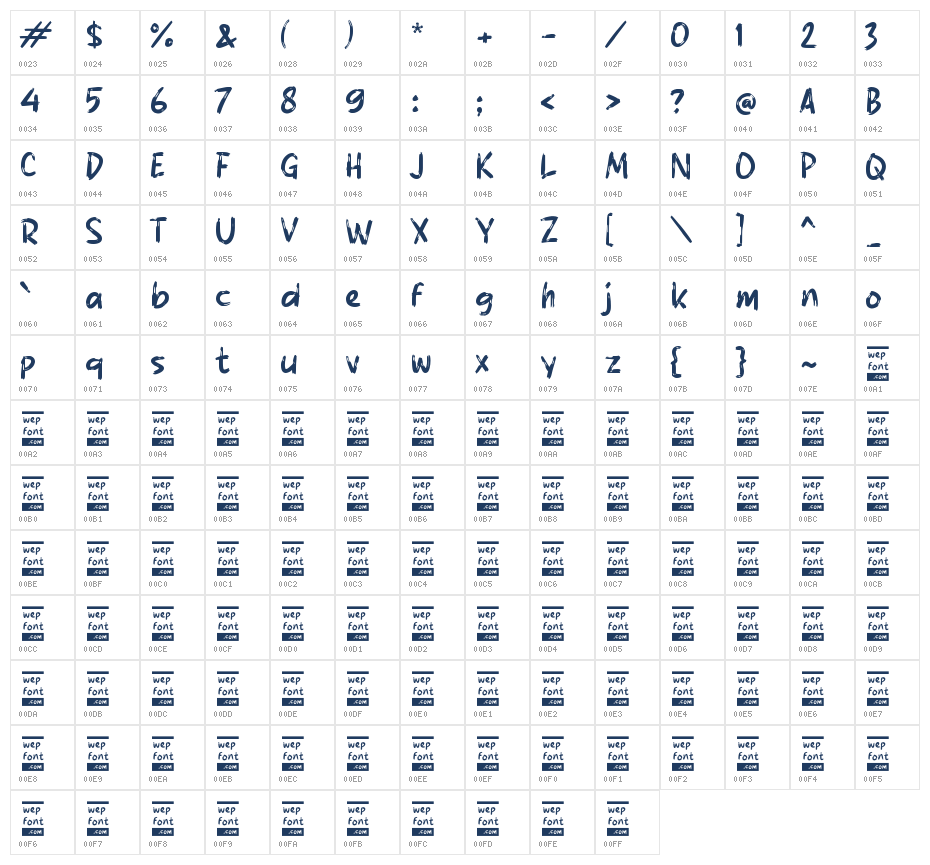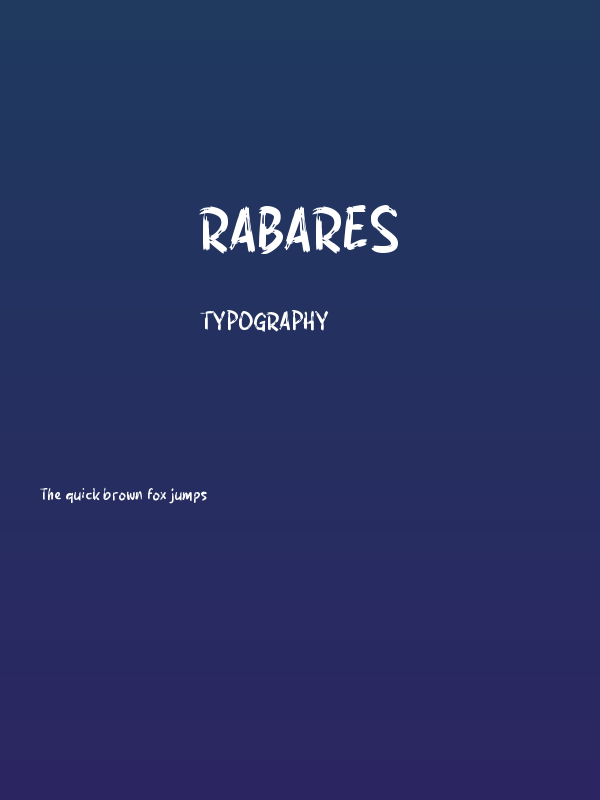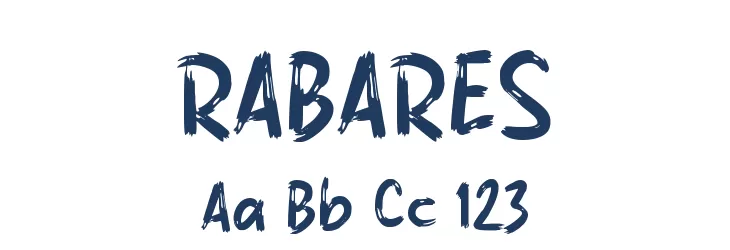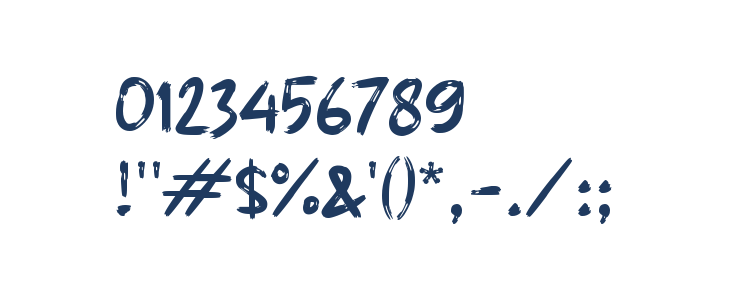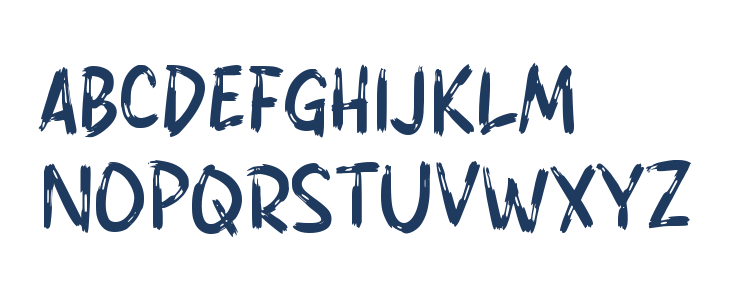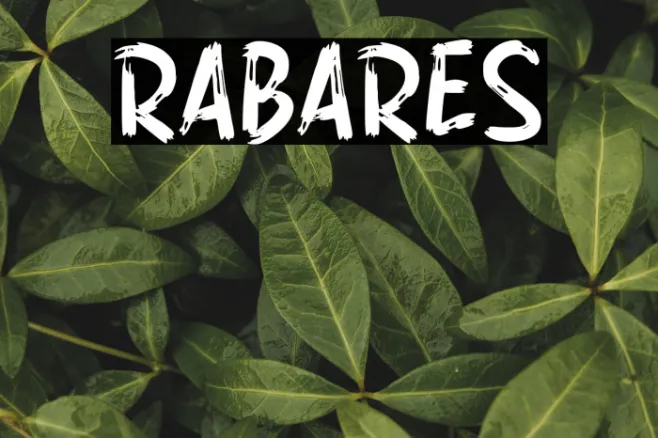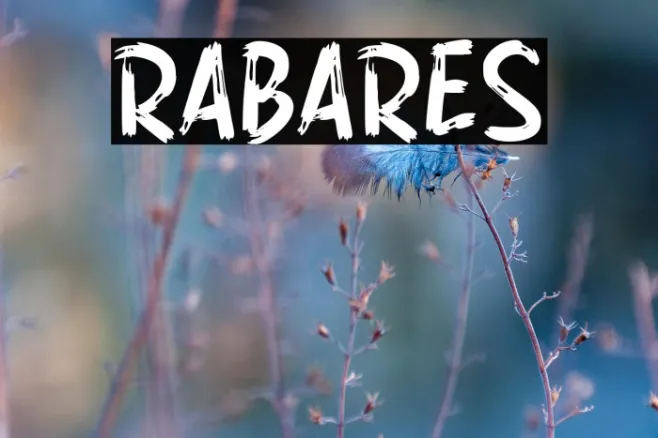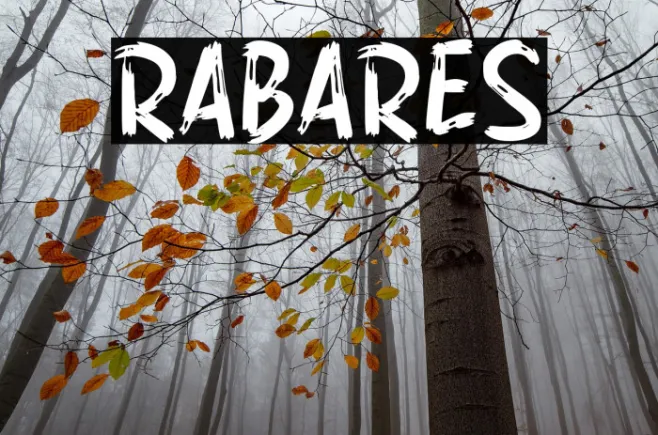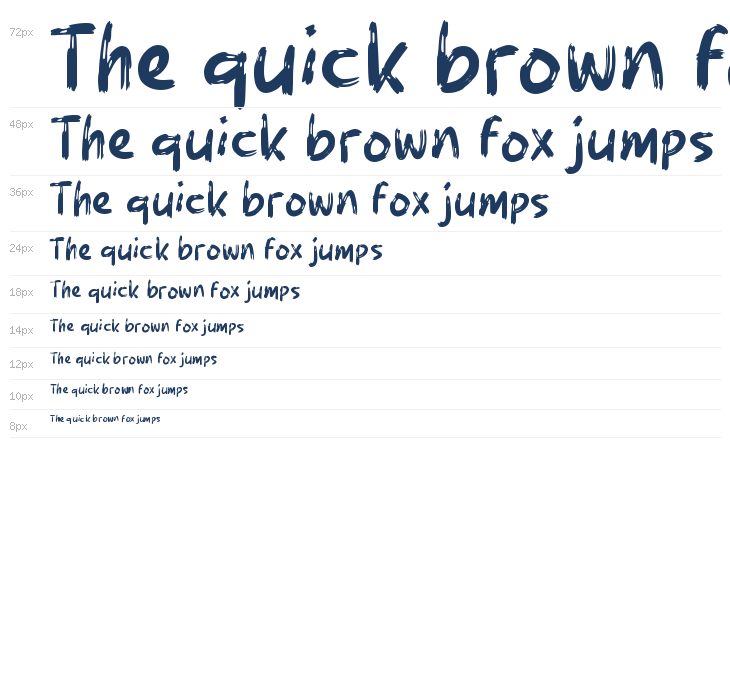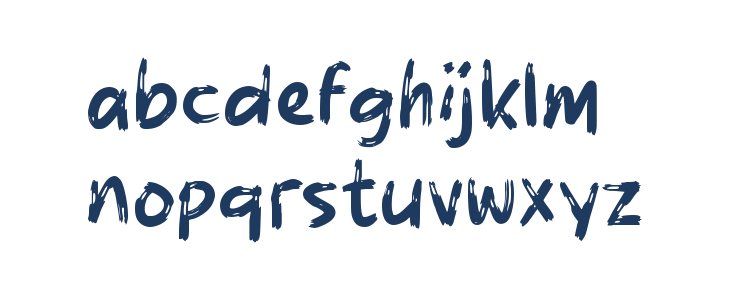
RABARES Font
RABARES Description
A casual, brush-stroke style font with a handwritten appearance, featuring irregular strokes and a playful, informal vibe.
| Overall Style | Casual, Handwritten, Artistic |
| Use Case | Headlines, Creative projects, Logos, Posters |